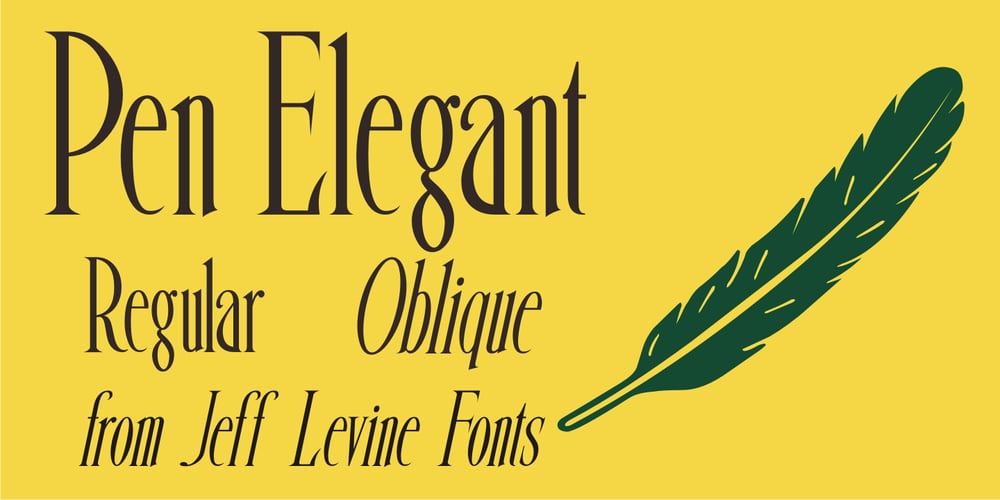
Pen Elegant JNL Font Family was designed by Jeff Levine and published by Jeff Levine. Pen Elegant JNL contains 2 styles and family package options. A 1918 lettering instruction book by William Hugh Gordon presented a number of lettering styles that were geared toward sign and show card painters along with tips and tricks regarding the correct construction of such signs for maximum effect. One pen lettered Roman alphabet with a beautiful set of numerals has been recreated digitally as Pen Elegant JNL, which is available in both regular and oblique versions. To note, Gordon was the co-inventor of the Speedball lettering pen with Ross F. George in 1915.